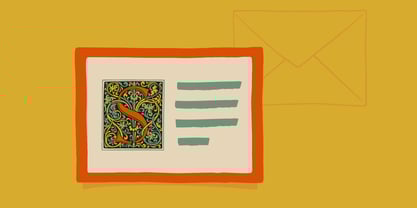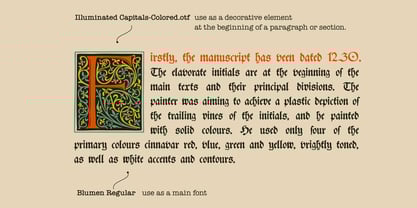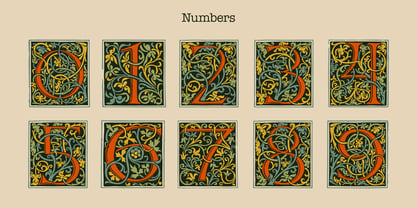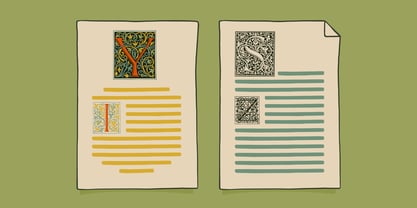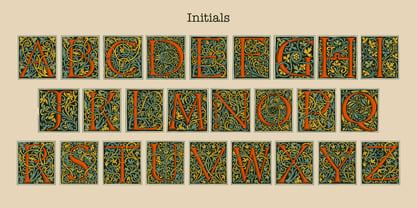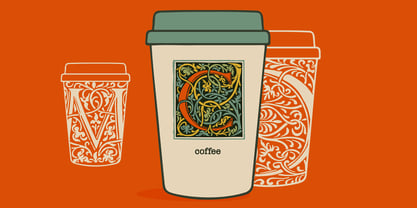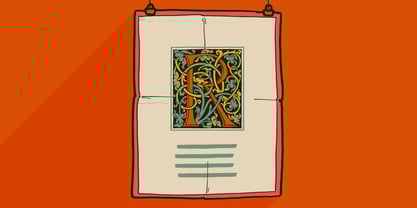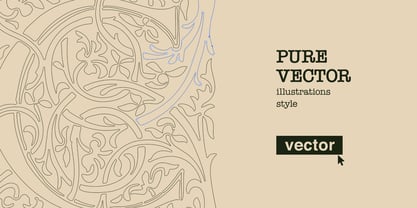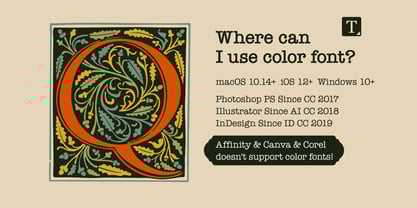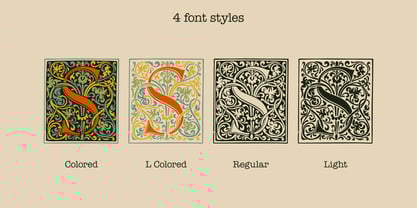
Venice Dropcaps
The Venice Dropcaps Font Family was designed by Roman Korolev and published by Kaer. Venice Dropcaps contains 4 styles and family package options. More about this family
This alphabet of illuminated initials is based on the sets found in books such as Historia Romana, Tabulae astronomicae, De mutatione aeris.
Incunabula I found were printed by the printer Erhard Ratdolt, one of the best publishers of scientific texts in the 15th century in Venice.
Illuminated capitals font family has Regular and Light, Colored and BW styles. Use this font as a decorative element at the beginning of a paragraph or section, other part of the paragraph should be in regular blackletter font.
You’ll get Drop Caps & Numbers set.